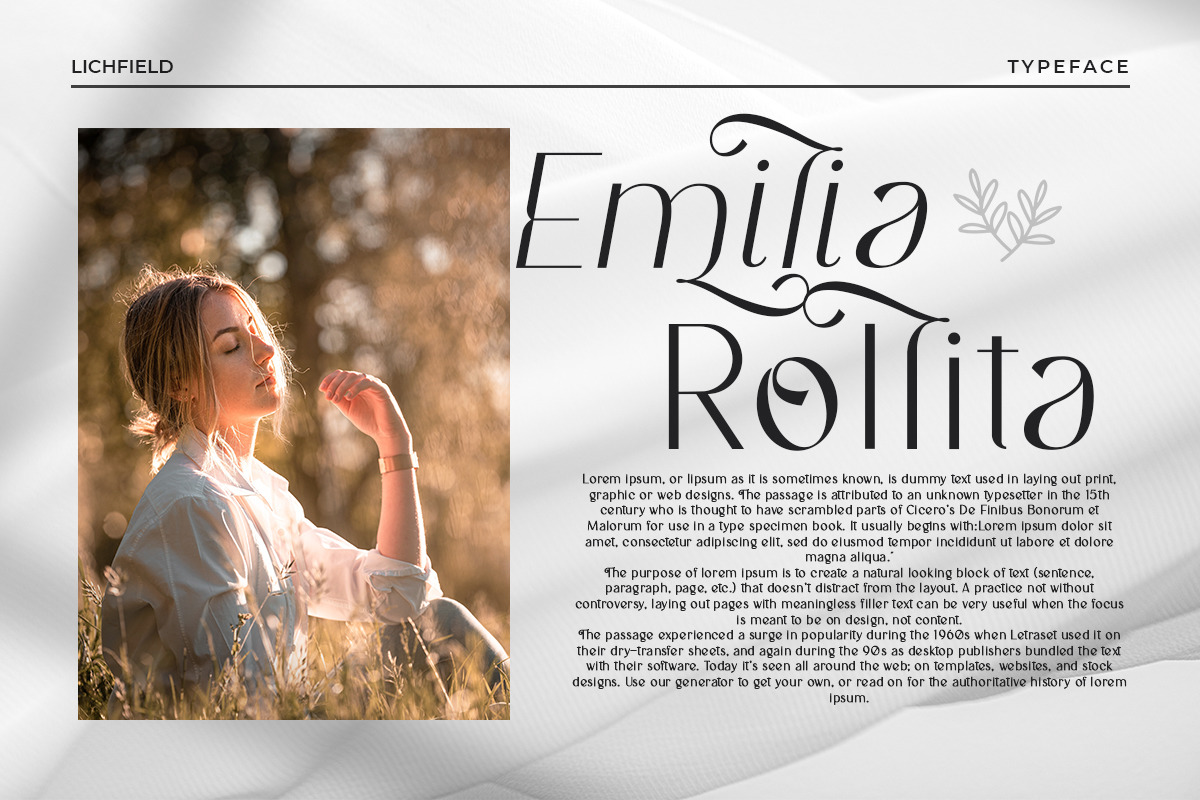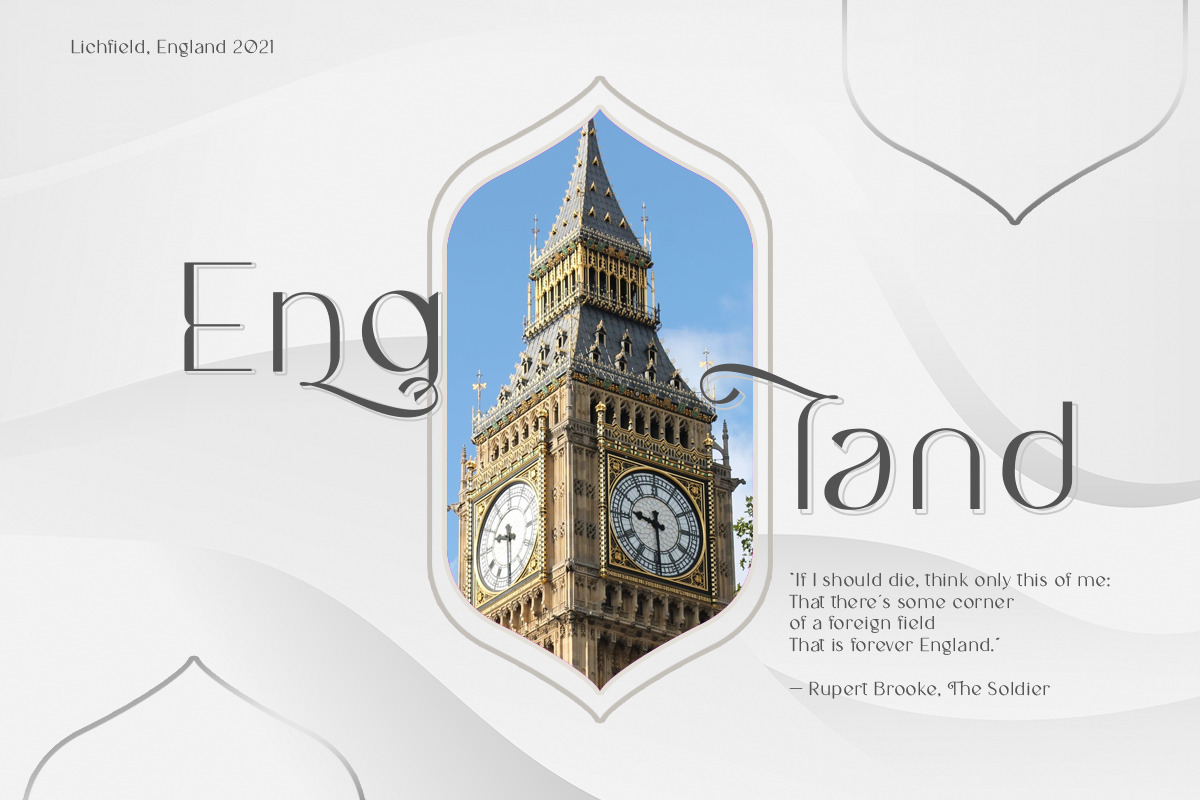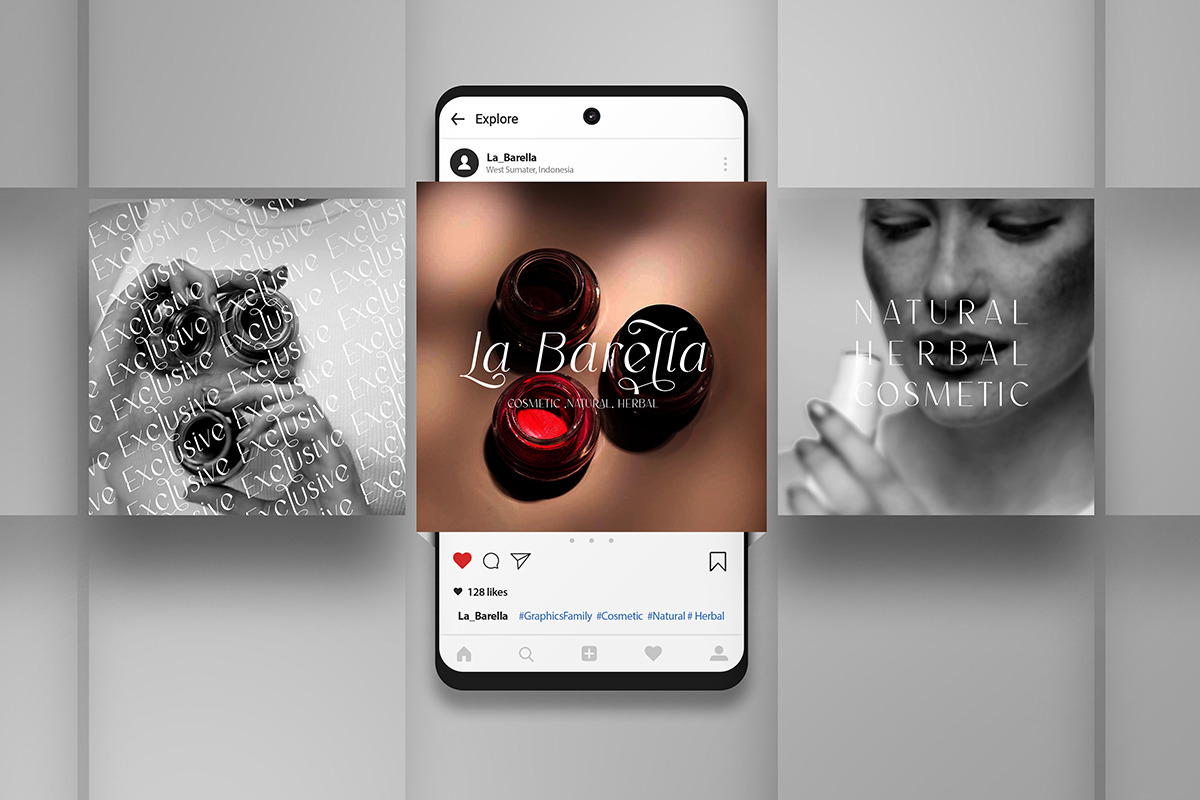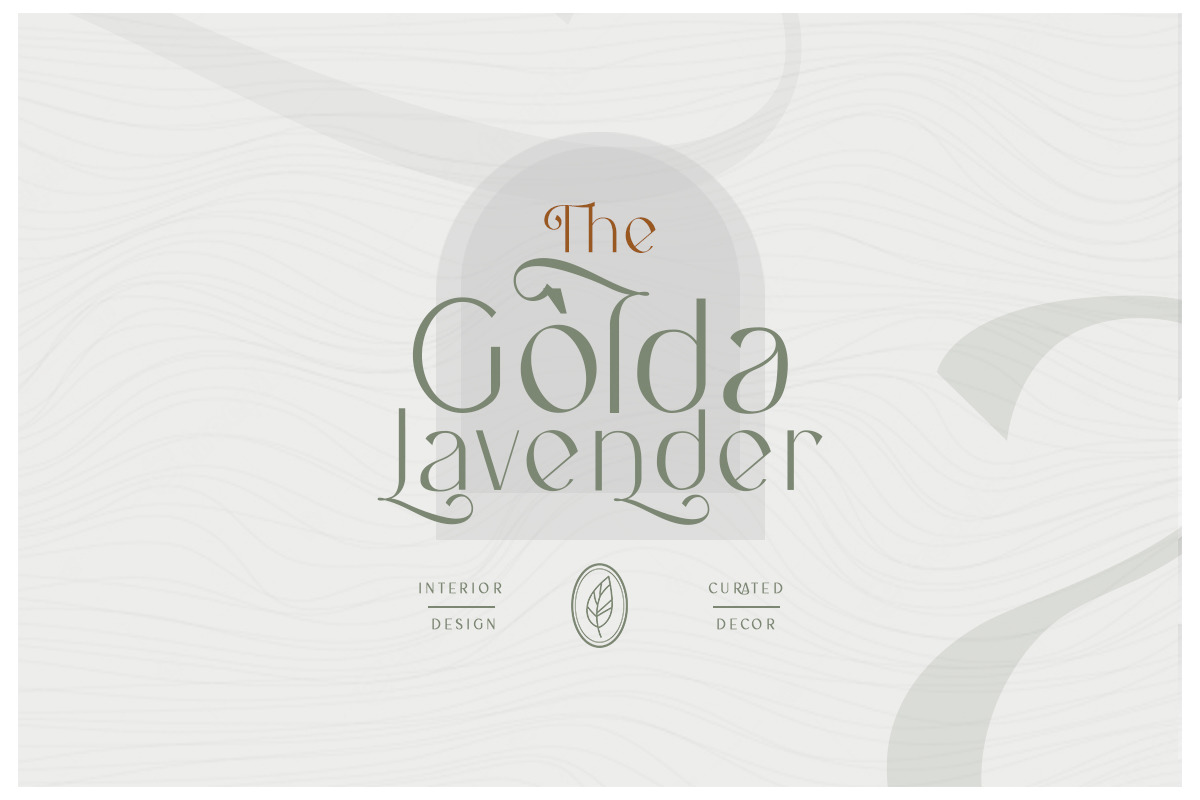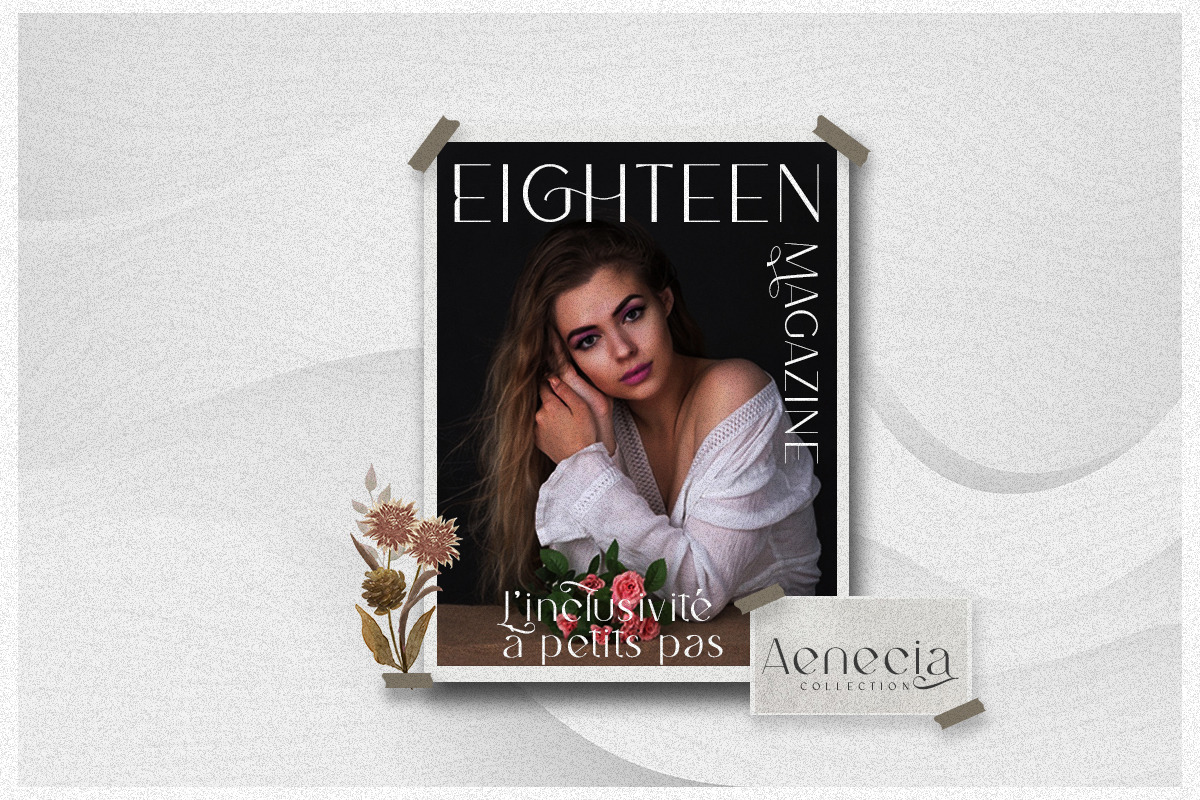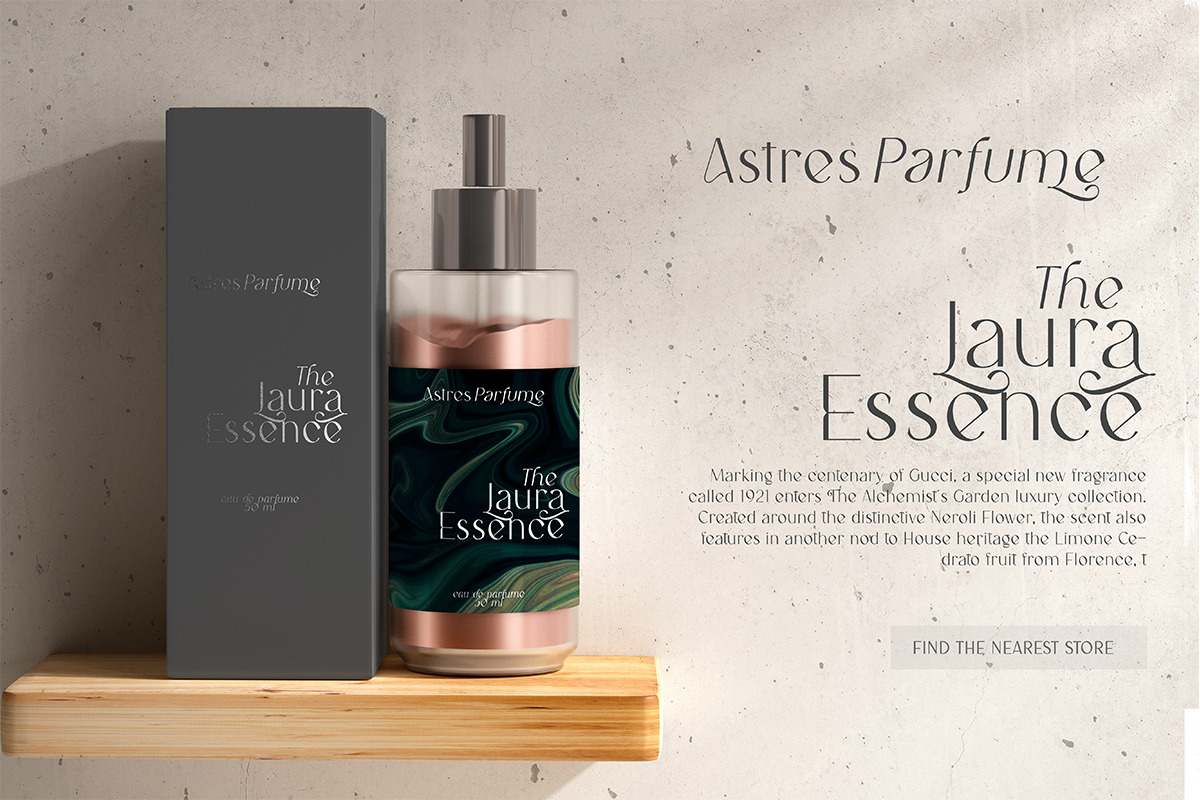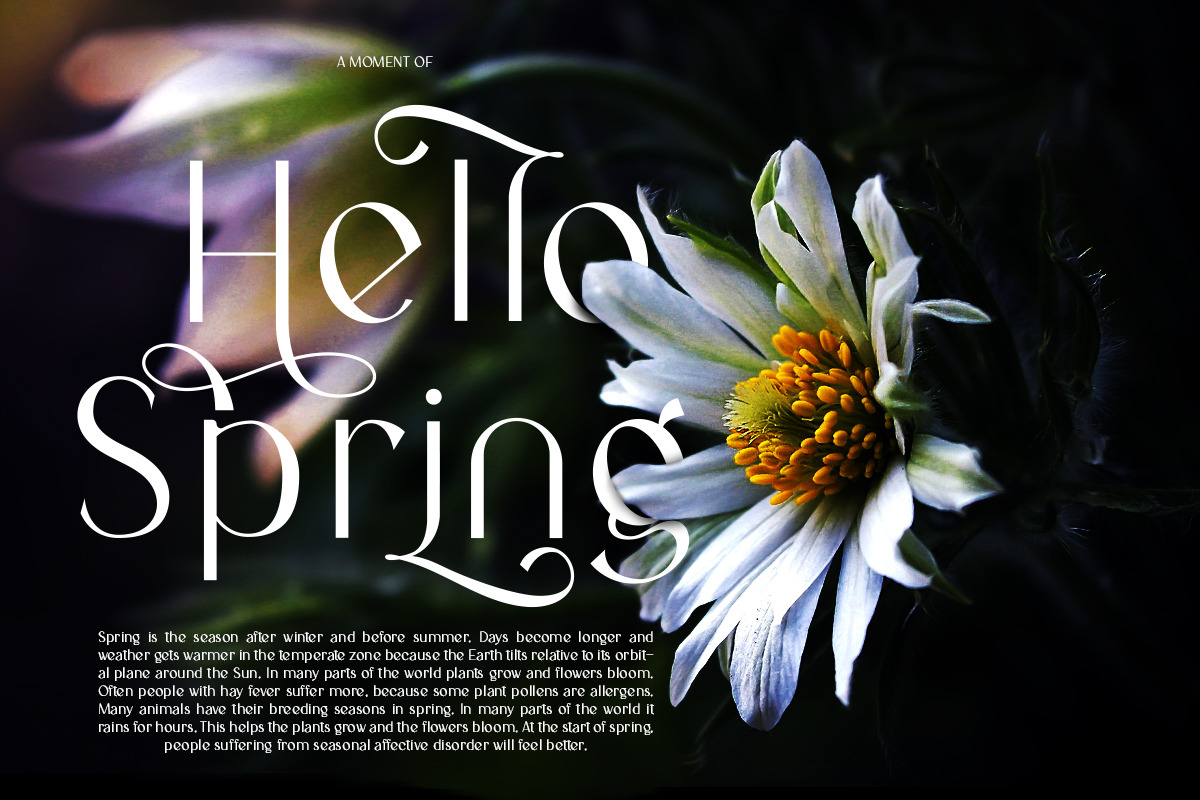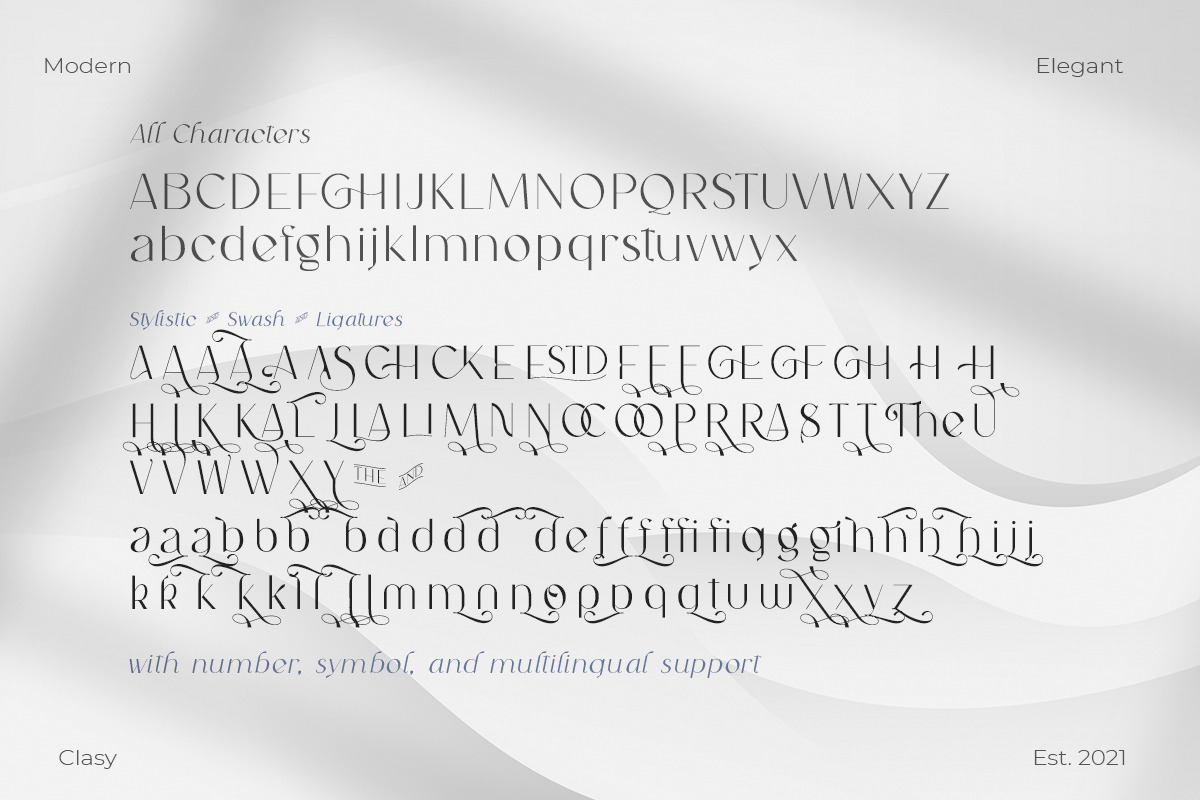
Lichfield Font
Lichfield is incredibly elegant and beautifully rounded sans serif font that will add a timeless look to any design project!. Very suitable for logo, brand identity pack, packaging designs and many more..
Features :
uppercase & lowercase
numbers and punctuation
multilingual
alternates